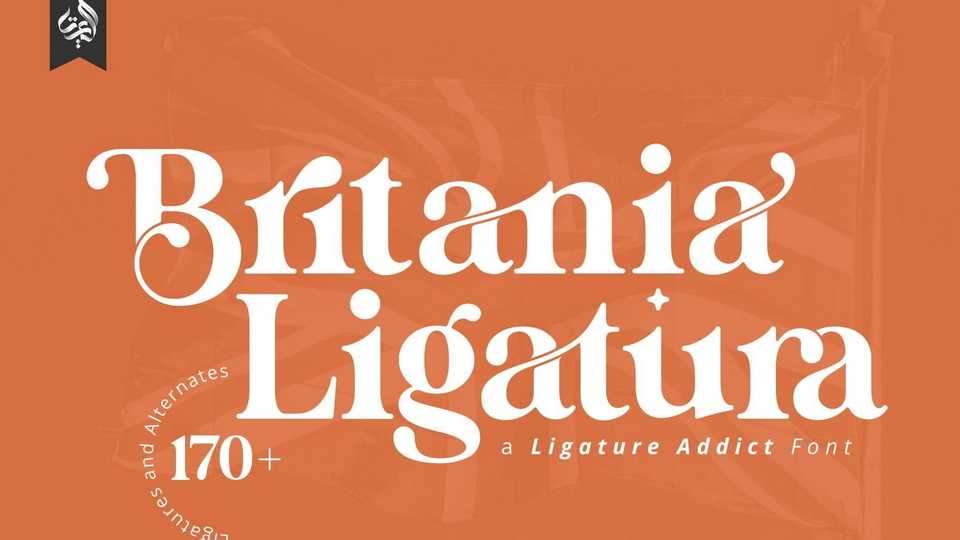
Download Britania Ligatura font, a stunning ligature addict display typeface to create a perfectly fashionable, beautiful, fancy and elegant design.
Designer: Aluyeah Studio